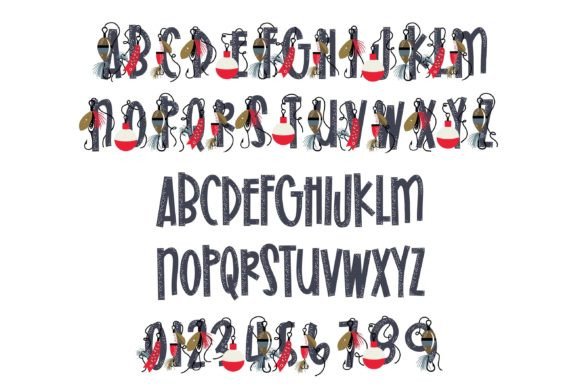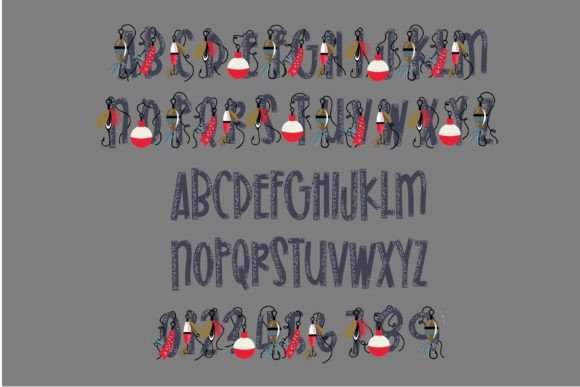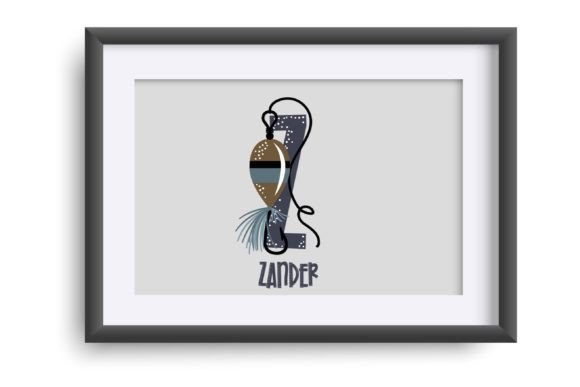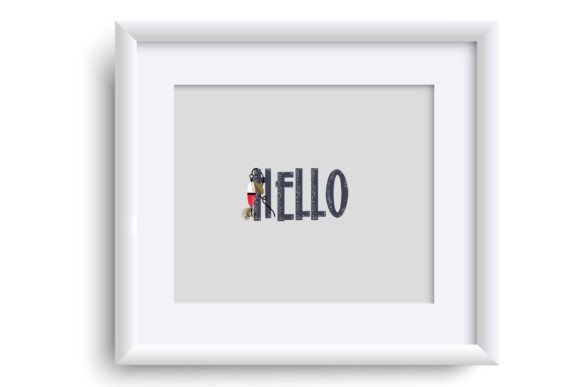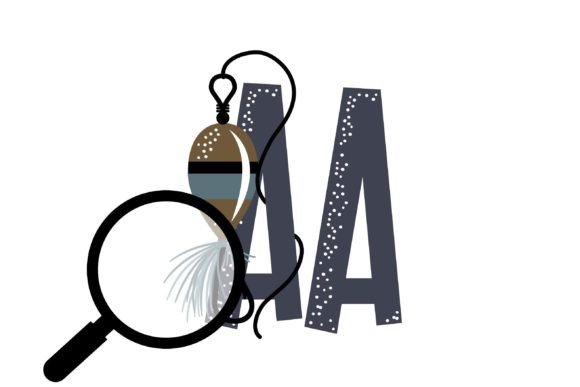
Introduction to Reel Cool Font Font
Fonts play a crucial role in design, and the Reel Cool Font font is a typeface that brings both character and versatility to any project. Whether you’re working on a branding project, a website, or a print design, the Reel Cool Font font offers a unique style that can elevate your work.
| 📌 Font Name | Reel Cool Font |
| 👤 Author | Illustration Ink |
This full-color font features sans serif lettering and a number of fishing elements.
Key Features of Reel Cool Font Font
Why Choose Reel Cool Font Font?
The Reel Cool Font font is more than just a typeface – it’s a design tool that helps you communicate your message with style and clarity. Its unique character set and versatile design make it suitable for a wide range of applications, from elegant invitations to bold headlines.
With its carefully crafted letterforms and balanced proportions, the Reel Cool Font font ensures readability and visual appeal across all mediums.
What makes Reel Cool Font font special?
The Reel Cool Font font stands out with its unique design, exceptional readability, and versatility across various design applications.